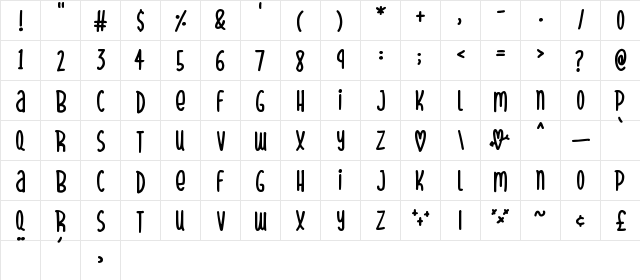
Sparkly Hearts Regular Font Preview
Sparkly Hearts Regular
Design Context for Sparkly Hearts Typeface
Sparkly Hearts is a composed and adaptable typeface that performs quietly and consistently across a wide range of design contexts.